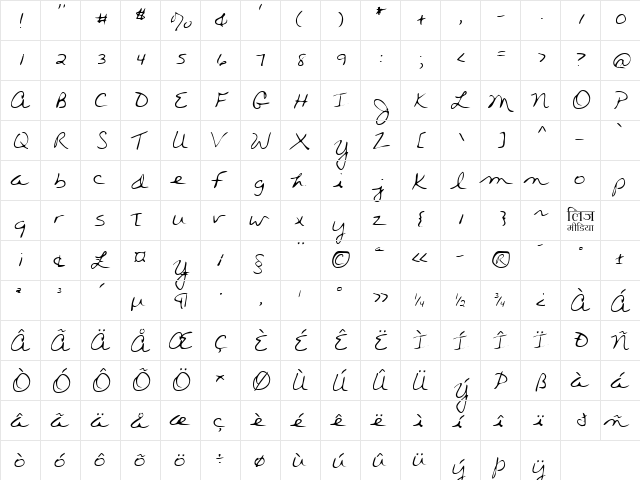
LEHN280 Regular
Design Context for LEHN280 Typeface
LEHN280 takes a measured approach to typography — its balanced proportions and neutral character make it a reliable workhorse for both digital and print work.